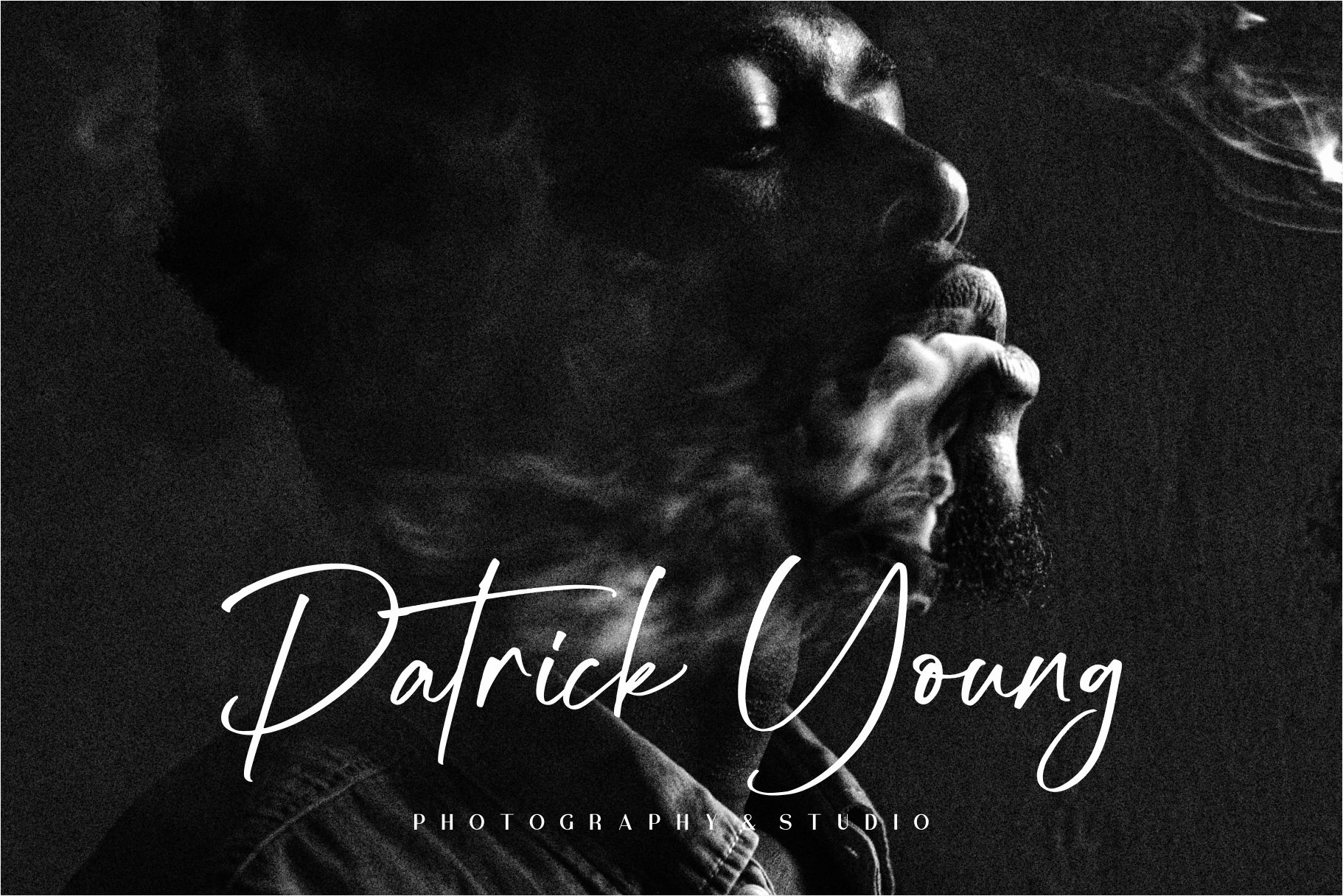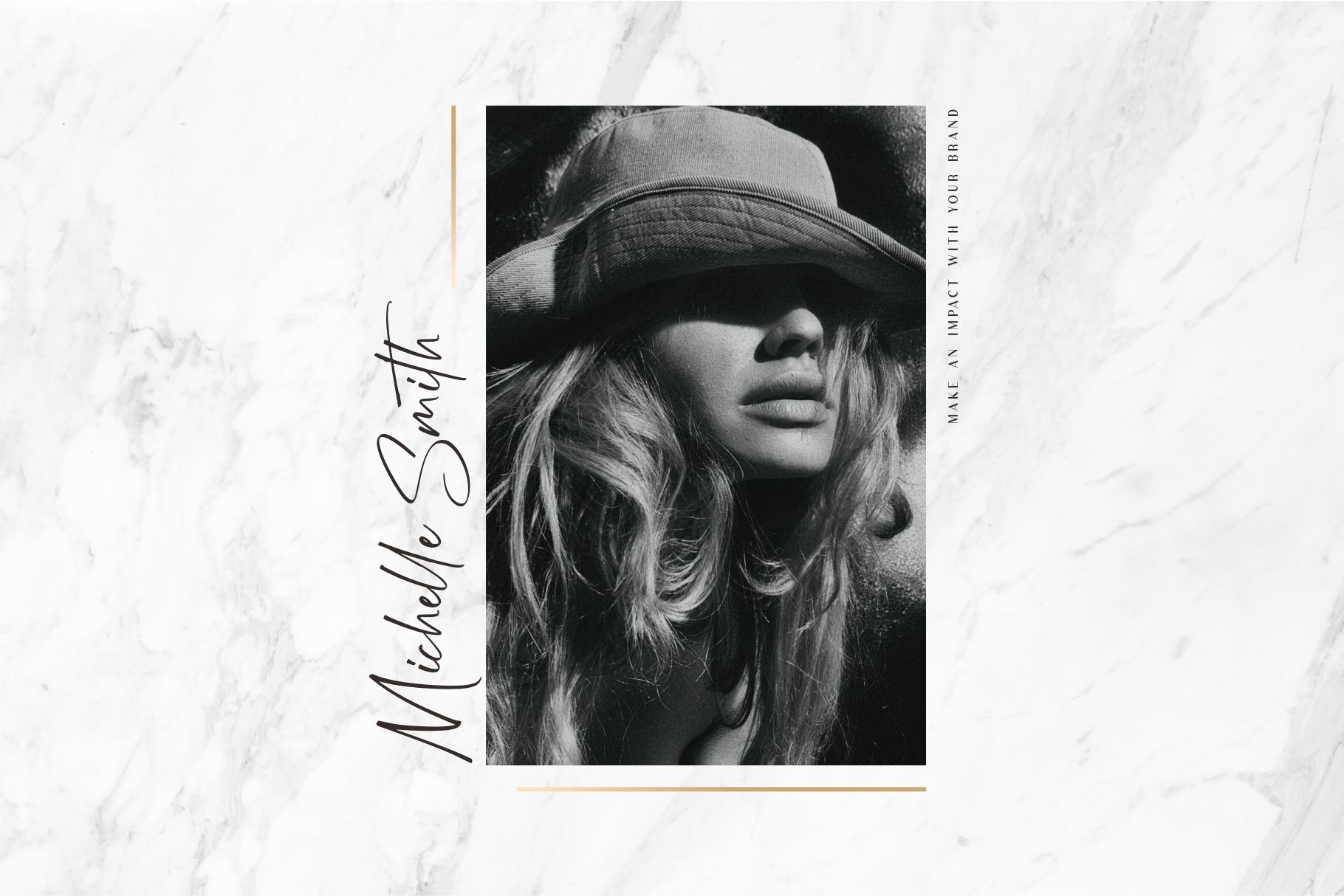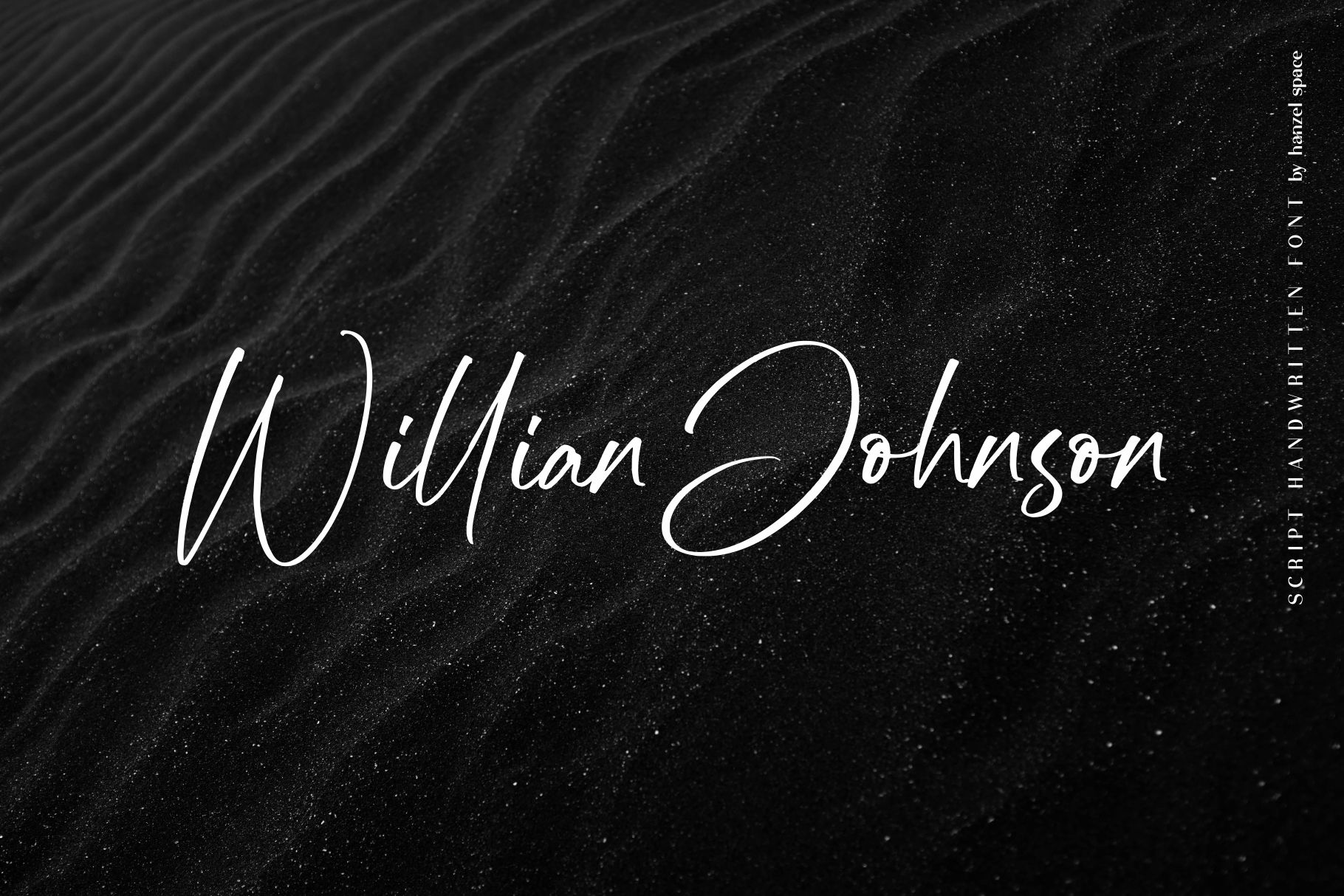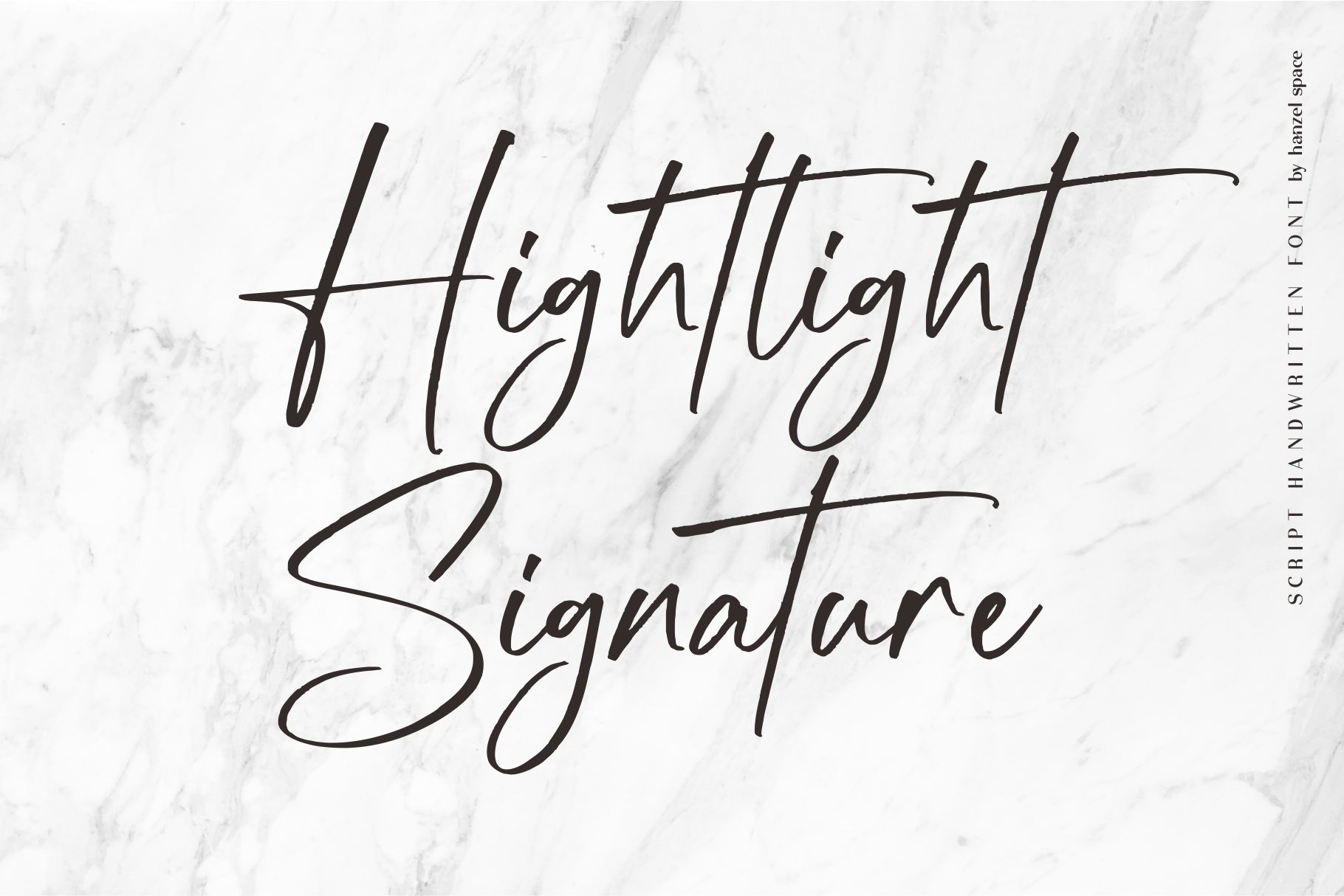
Hightlight Handwritten Font
This is a handwritten font with casual chic flair. It is perfect for branding, wedding invites and cards, and maybe for red wine label.
Hightlight includes full set of gorgeous uppercase and lowercase letters, numerals, a large range of punctuation. All lowercase letters include beginning and ending swashes, giving realistic hand-lettered style. What you get, darling?
Hightlight is a handwritten font with casual chic flair. It is perfect for branding, wedding invites and cards, and maybe for red wine label.
Hightlight includes full set of gorgeous uppercase and lowercase letters, numerals, a large range of punctuation. All lowercase letters include beginning and ending swashes, giving realistic hand-lettered style.
• Standard Ligatures
• Stylistic Sets
• Numerals and Punctuation